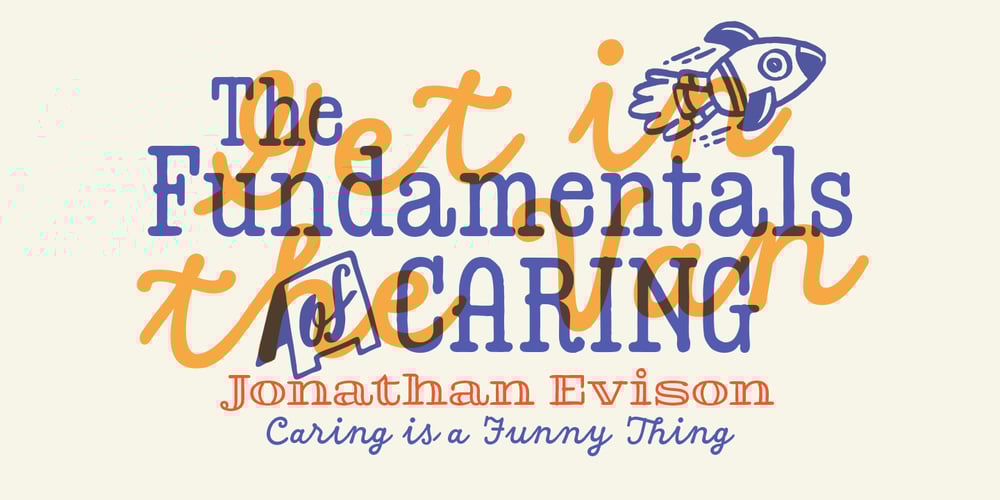
Sussan Font Family was designed by Felipe Calderón, Jhony Velasco and published by Estudio Calderon. Sussan contains 16 styles and family package options. The Sussan type family is a hand lettering collection designed by Felipe Calderón. It contains sixteen different hand-drawn fonts and a set of funny illustrations designed by Jhony Velasco. On this occasion, we tried to match several font concepts to create nice pieces with them and each one is equipped with automatically exchanging alternates, ligatures, swash letters and some other feature.